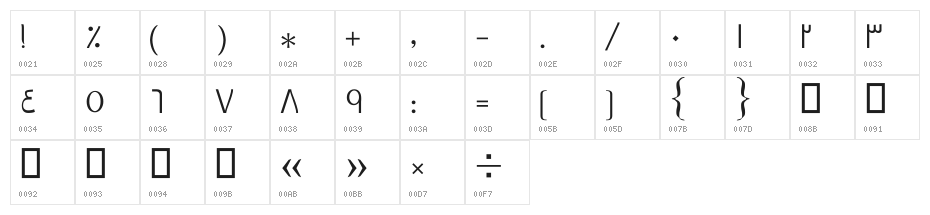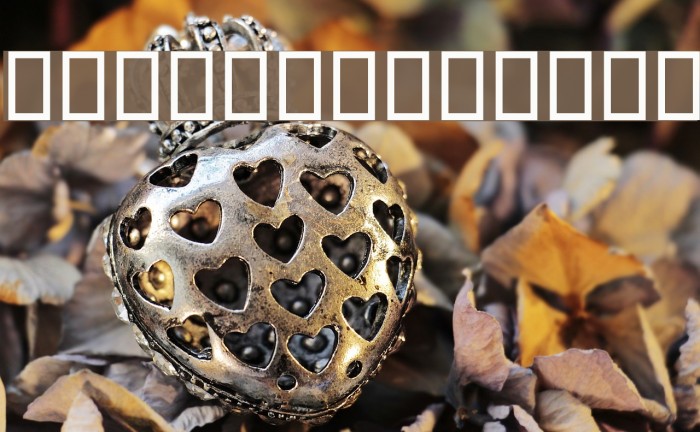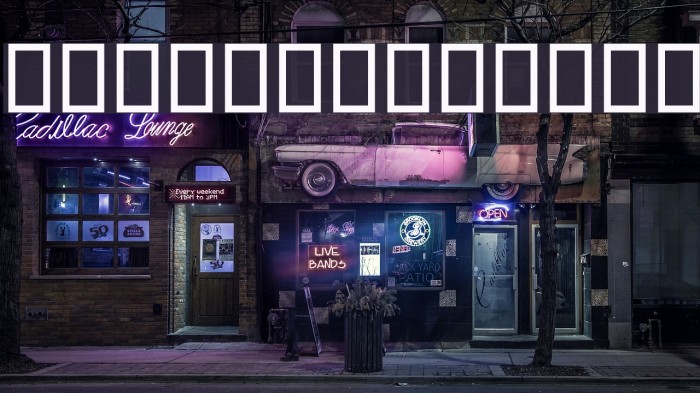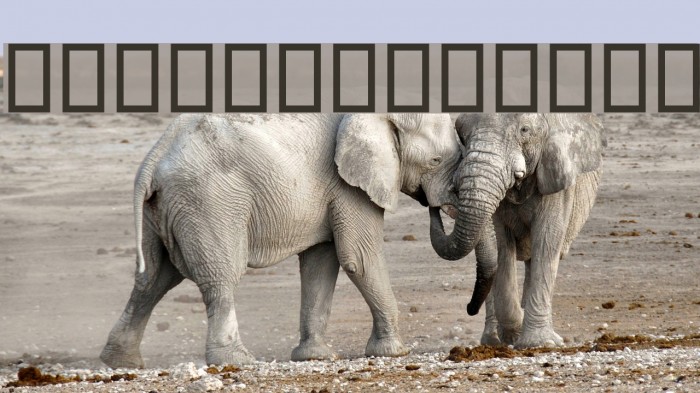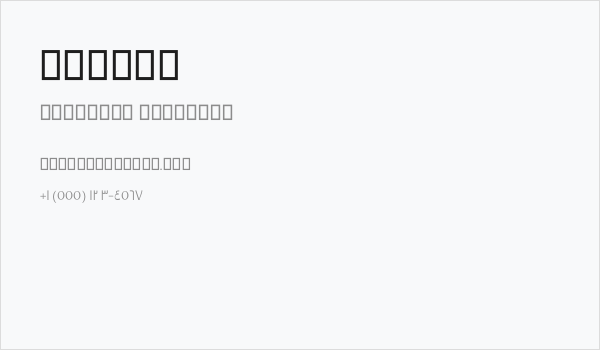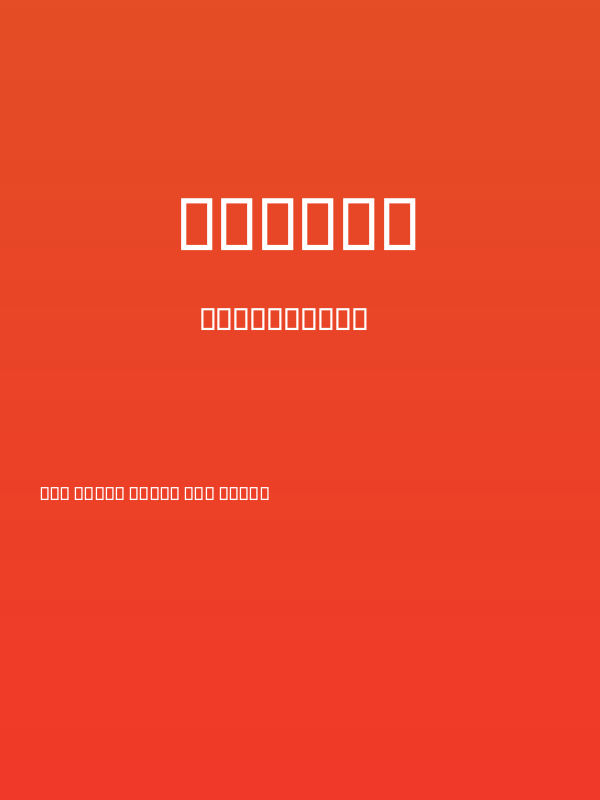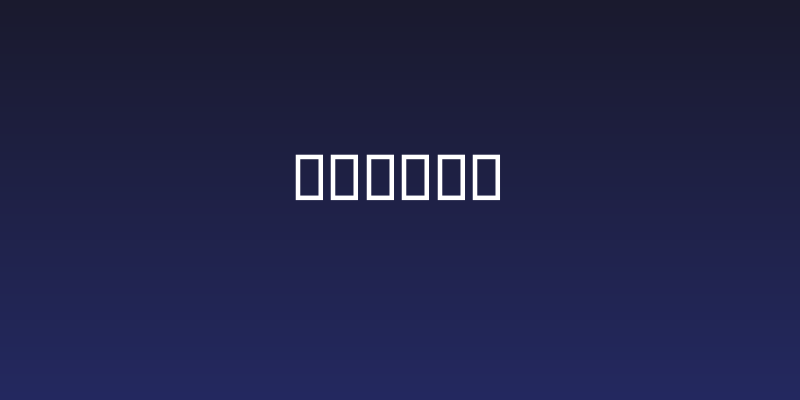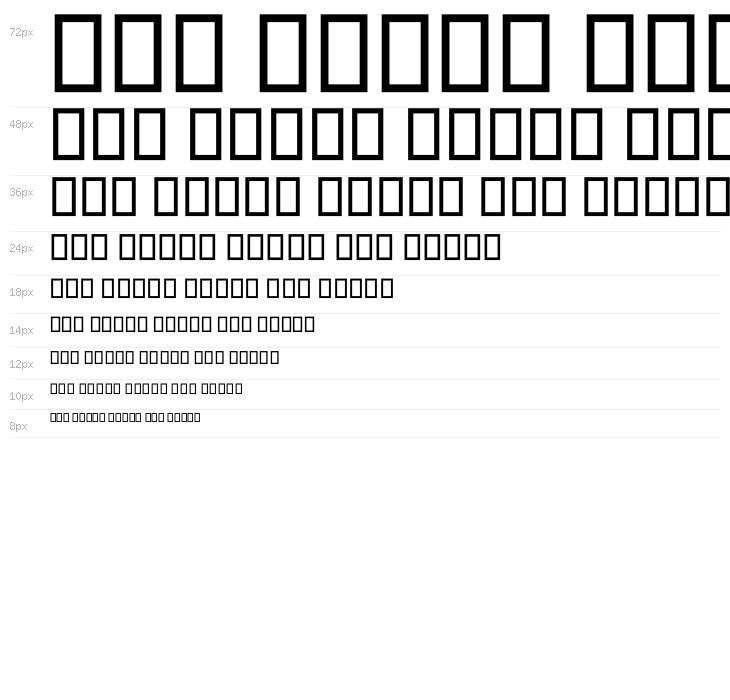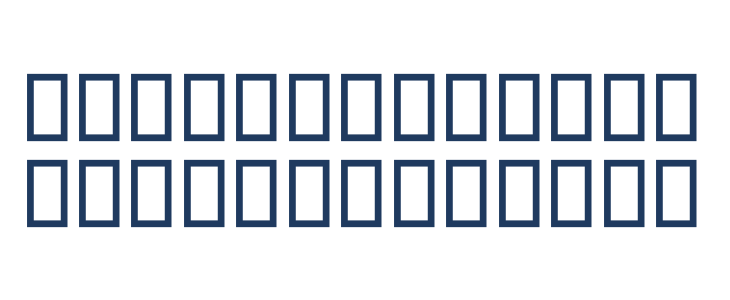
Maryam Font
Maryam Description
This font features a modern and clean design with a geometric structure. The characters are crafted with a consistent stroke width, giving it a uniform appearance. The numerals are distinct and easy to read, while the special characters are well-integrated into the overall style. The font's simplicity and clarity make it suitable for a variety of applications, offering a professional and contemporary look.
| Proposed Projects | Ideal for branding, digital interfaces, and editorial design where clarity and modernity are essential. |